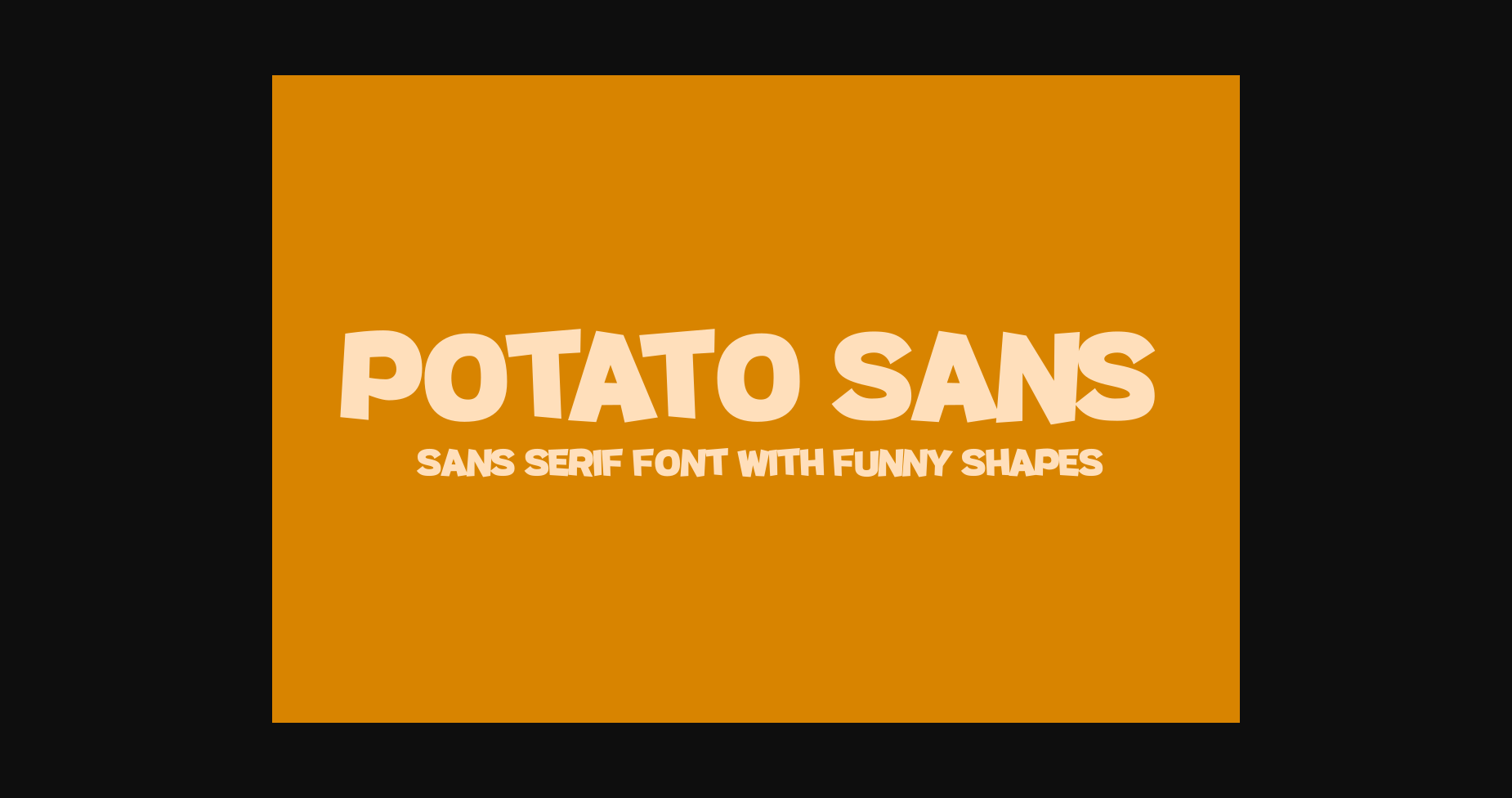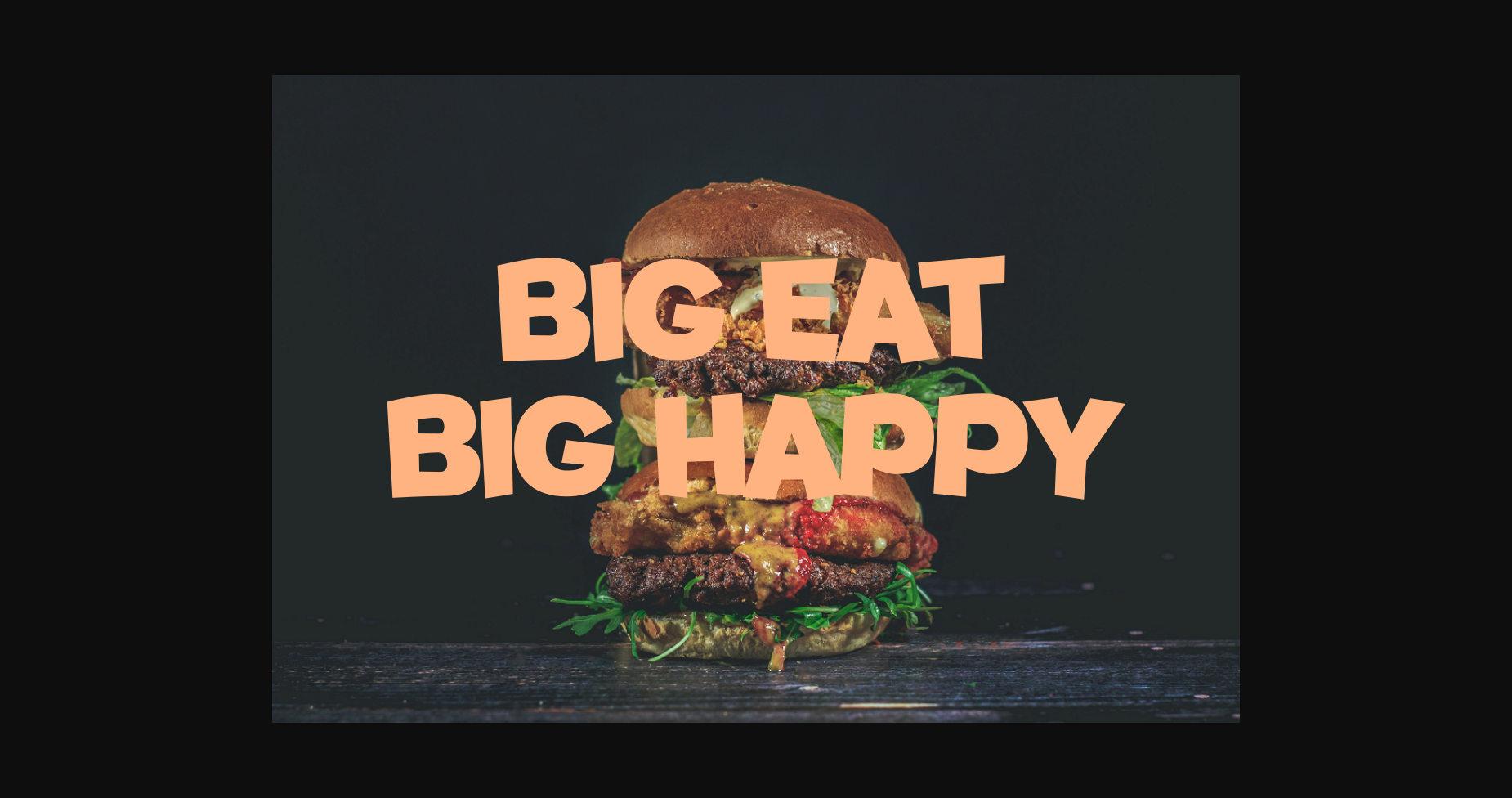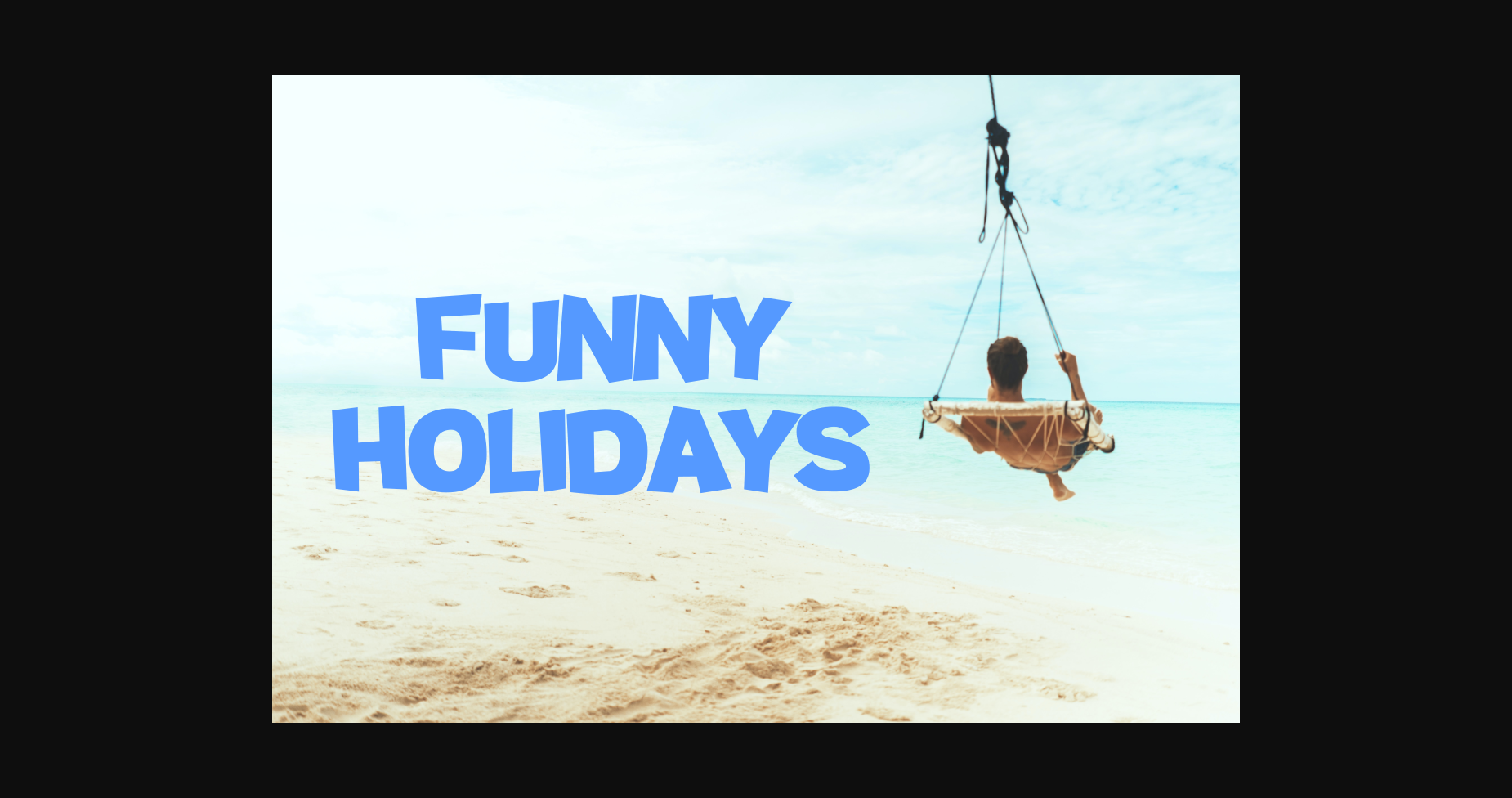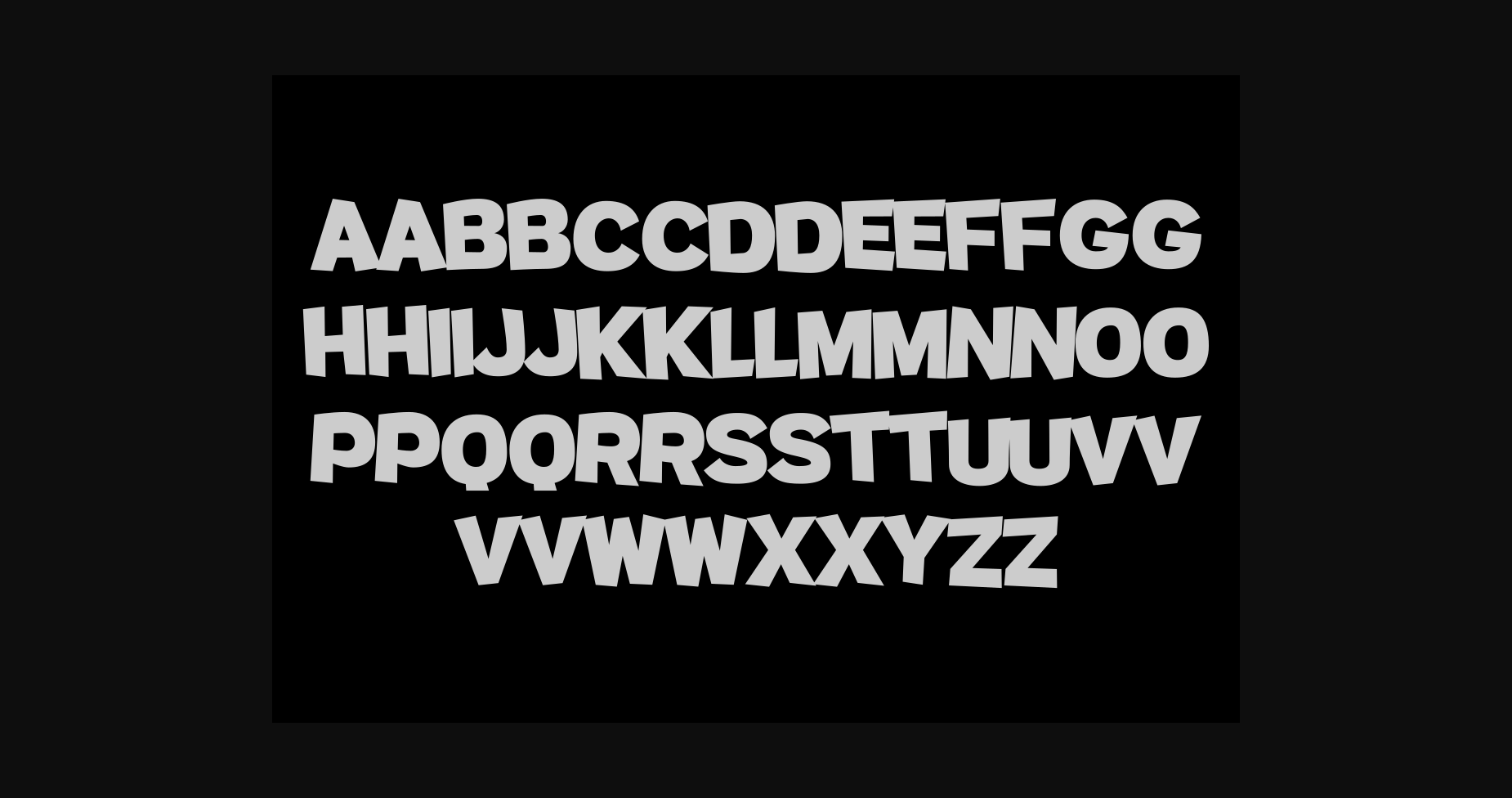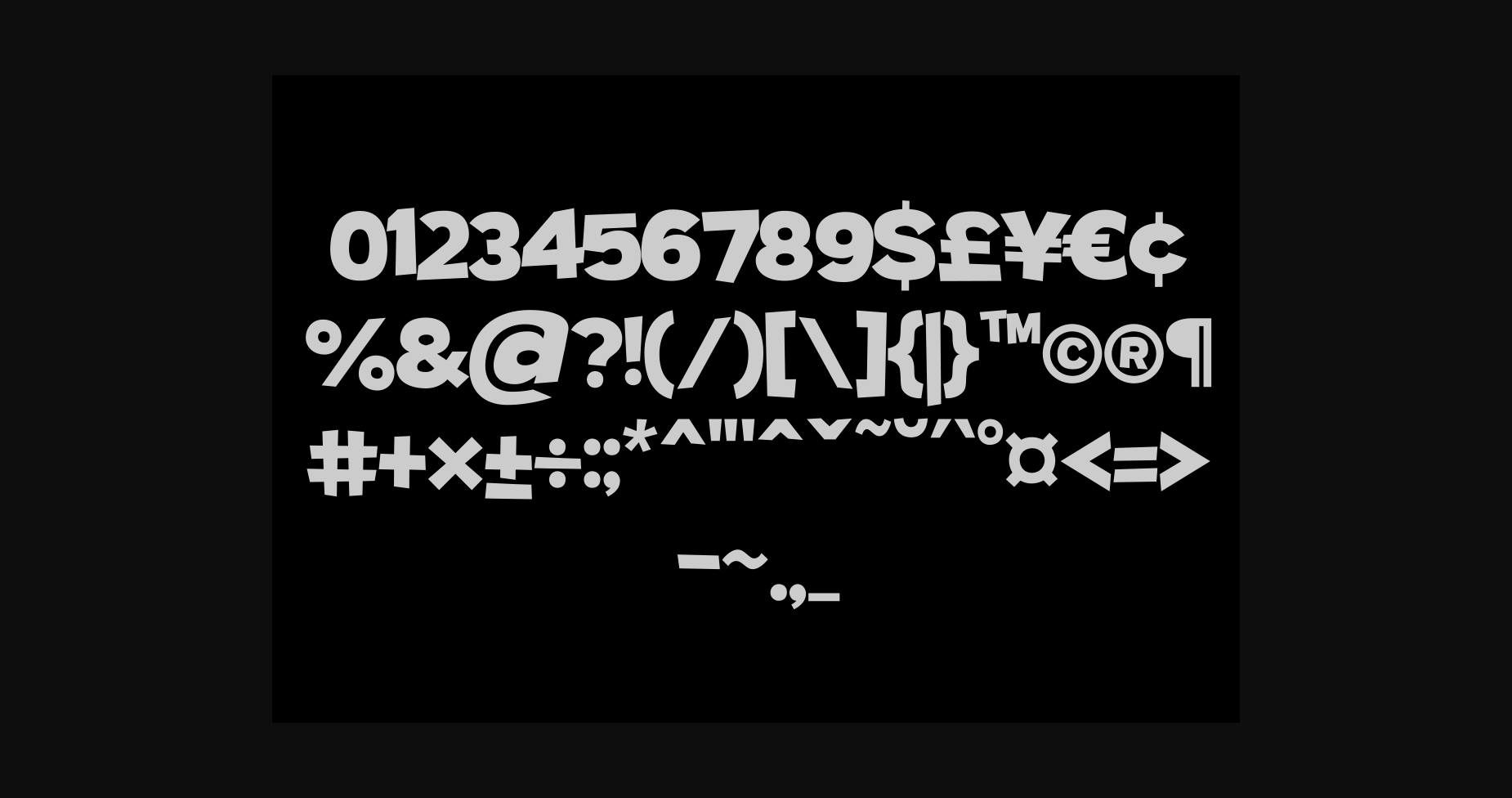
Potato Sans is a cool, quirky and bold sans serif font. Whatever the topic, this font will be a wonderful asset to your font library, as it has the potential to enhance any creation.